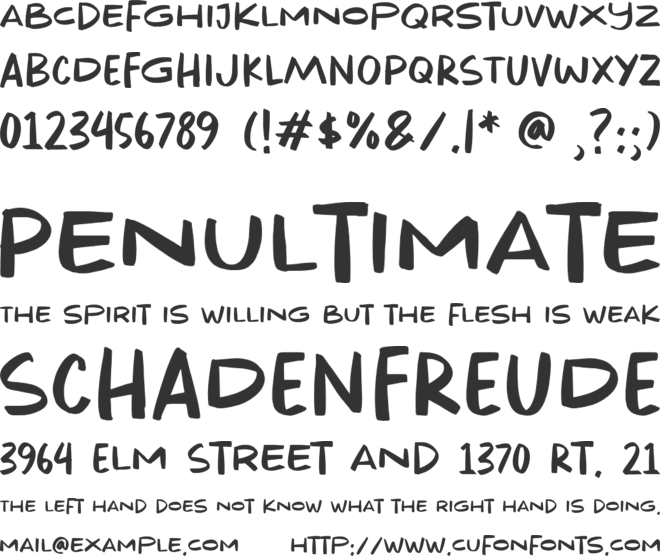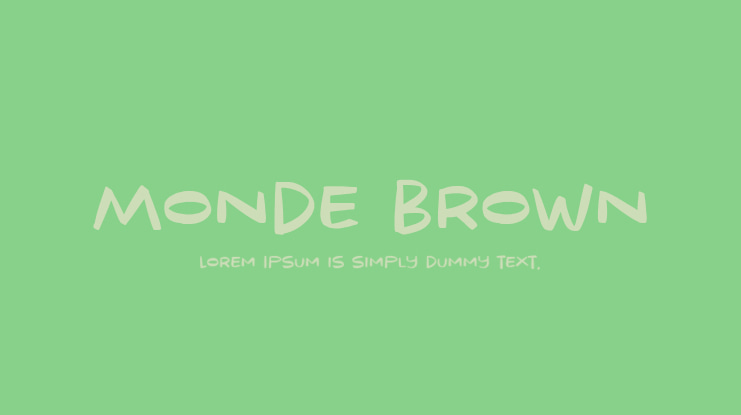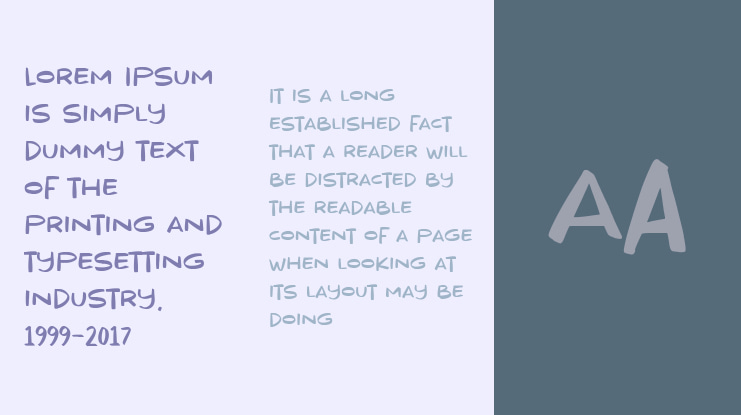
Introducing Monde Brown by Timurtype Studio!
Monde Brown is a playful and dynamic display font, crafted to bring a lively and engaging touch to your projects. With its bold design and rounded edges, it's the perfect choice for branding, headlines, logos, and editorial designs. The font allows for creative and fluid combinations, enhancing its visual appeal.
Monde Brown also supports multiple languages.
Monde Brown Font Features:
- Full set of standard alphabets and punctuation